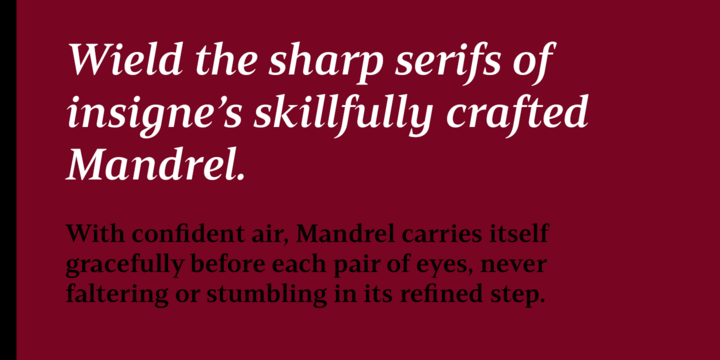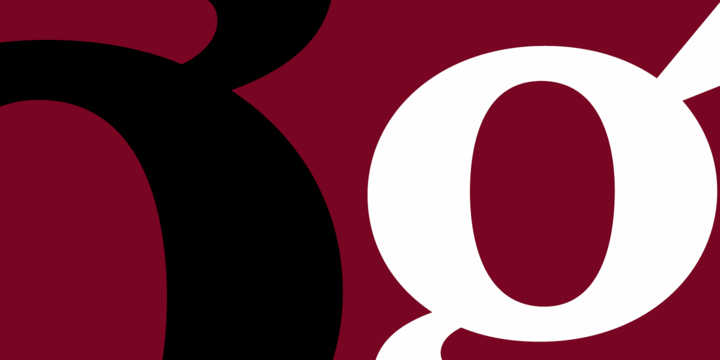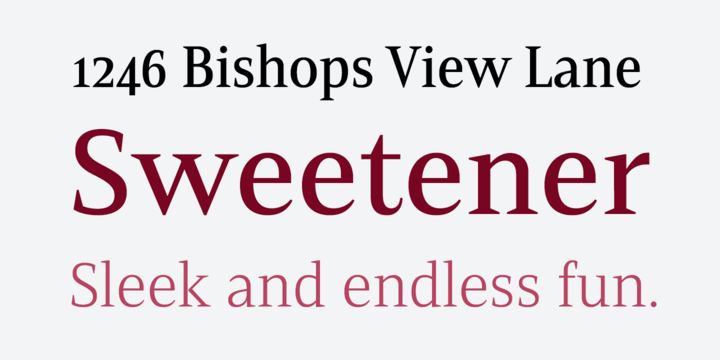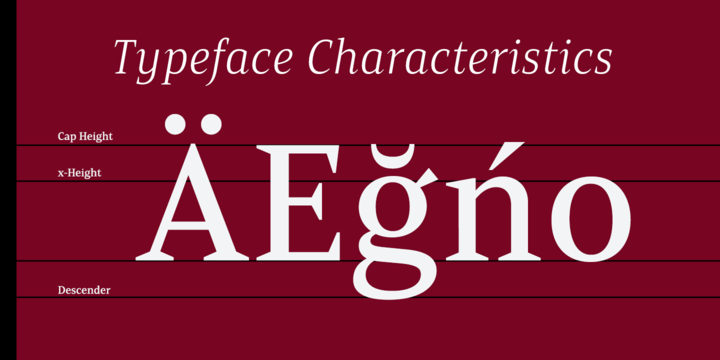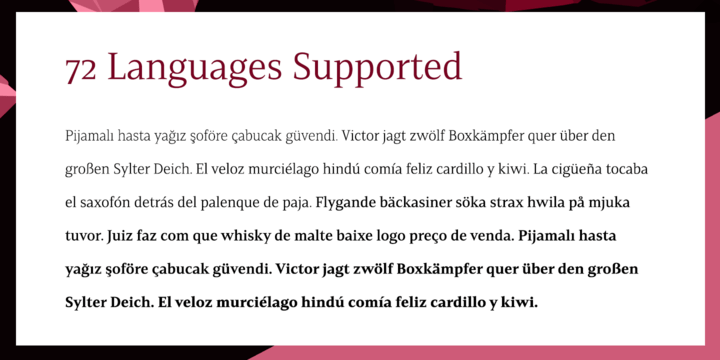
About Mandrel
From the realm of insigne, a new family has risen. By name, Mandrel. Courtly in character and elegant in appearance, the face finds great favor among those with whom it seeks audience. With confident air, Mandrel carries itself gracefully before each…